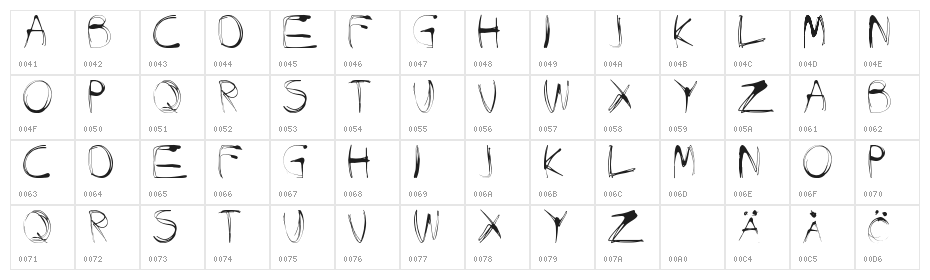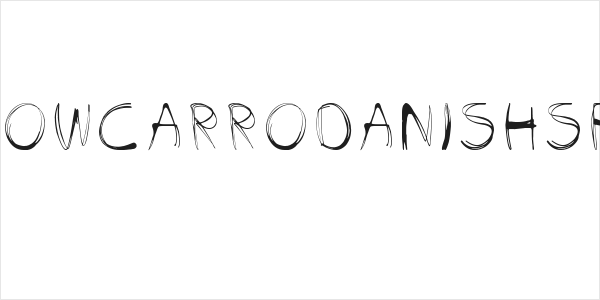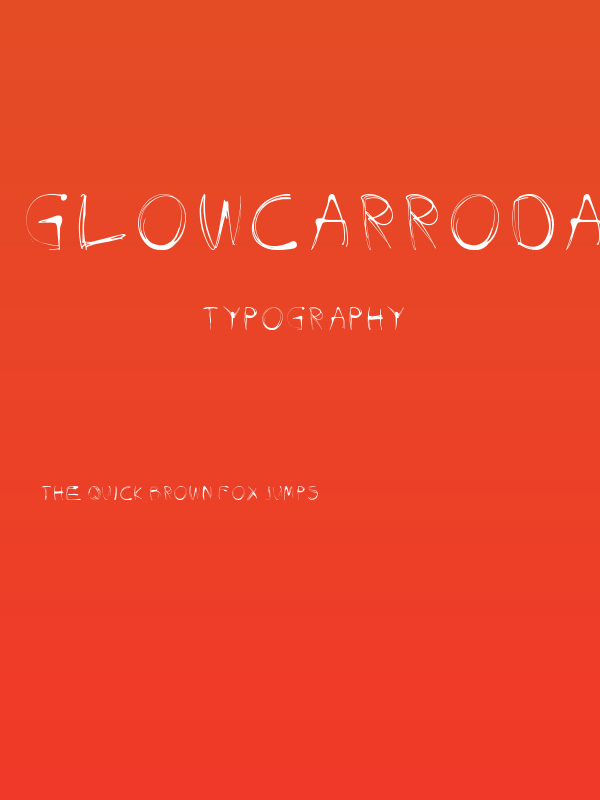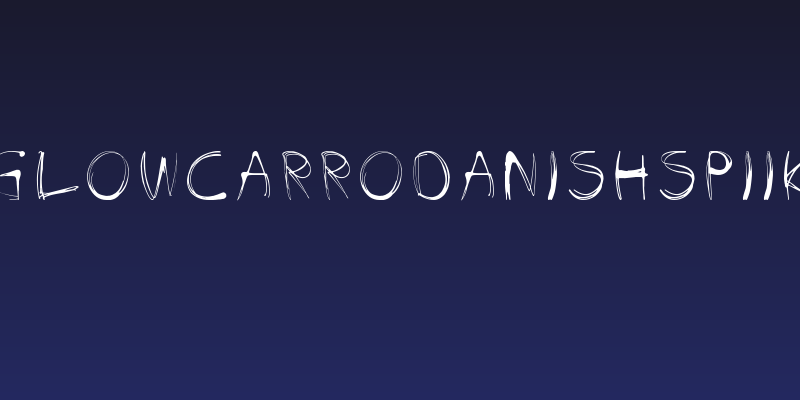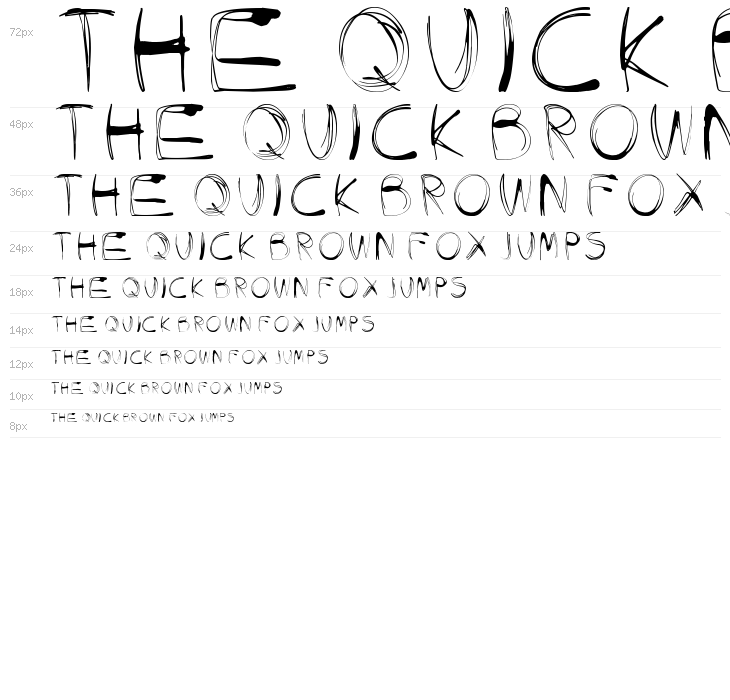
glow-carro-danish-spiik Font
glow-carro-danish-spiik Description
This font features a unique, hand-drawn style with a playful and artistic flair. The characters are irregular and dynamic, with varying stroke thicknesses that create a sense of movement and spontaneity. The uppercase and lowercase letters maintain a consistent style, while the numbers and special characters add to the overall whimsical feel. The strokes are bold and expressive, giving each letter a distinct personality. This font is perfect for projects that require a creative and informal touch, such as children's books, artistic posters, or branding for creative industries.
| Proposed Projects | Ideal for children's books, artistic posters, and creative branding. |